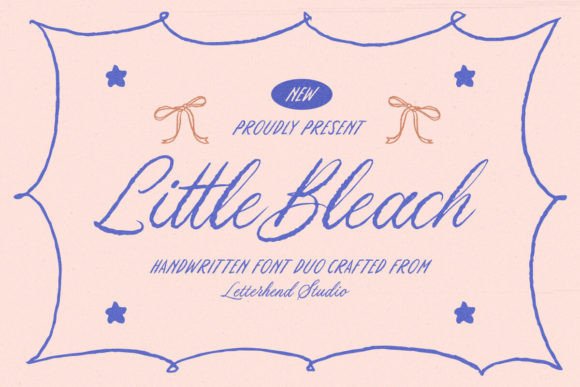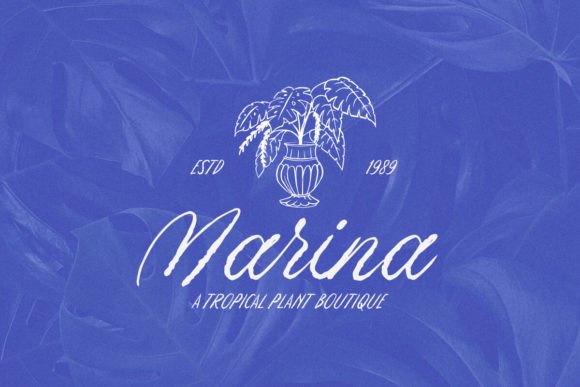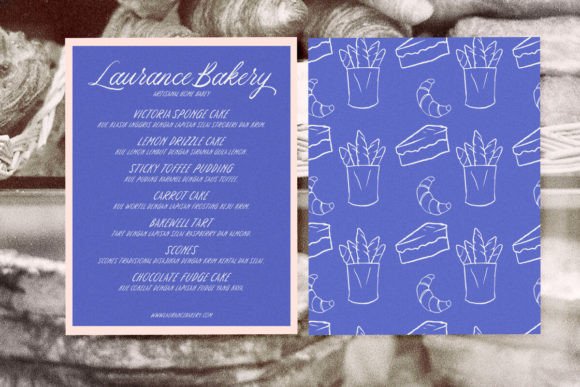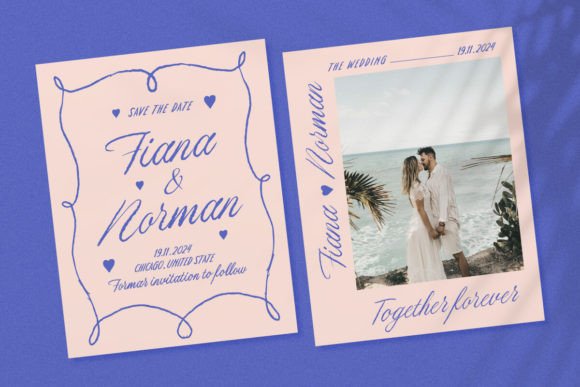
Little Bleach Font
About the Little Bleach Font
Meet Little Bleach Font, a stunning font that brings a touch of elegance and professionalism to any design. Meet Little Bleach, a crafted font duo that combines two styles: an textured script and a organic san handwriting. These fonts work beautifully together, making them ideal for a range of uses like logos, invitations, labels, magazines, books, and greeting cards. They’re also great for packaging, fashion, makeup, stationery, and all kinds of advertising!
Little Bleach’s textured script shines in headlines, short quotes, and logotypes where its organic feel adds a touch of handcrafted charm. It excels in branding for artisanal products, boutique businesses, and projects emphasizing a handmade aesthetic. Avoid using it for large blocks of body text; its informal nature and texture make extended reading difficult.
The accompanying sans-serif complements the script perfectly, offering readability for supporting text in invitations or packaging. Pair Little Bleach with a clean, geometric sans-serif for a modern contrast, or a classic serif for a more traditional feel. Think fonts like Lato or Montserrat for a contemporary pairing, or Garamond or Playfair Display for a touch of elegance.
The overall personality is friendly, approachable, and slightly whimsical, making it unsuitable for serious or corporate applications. It’s ideal for brands focused on creativity, individuality, and a handcrafted touch.
Little Bleach Font Usage Examples
Little Bleach Font Example